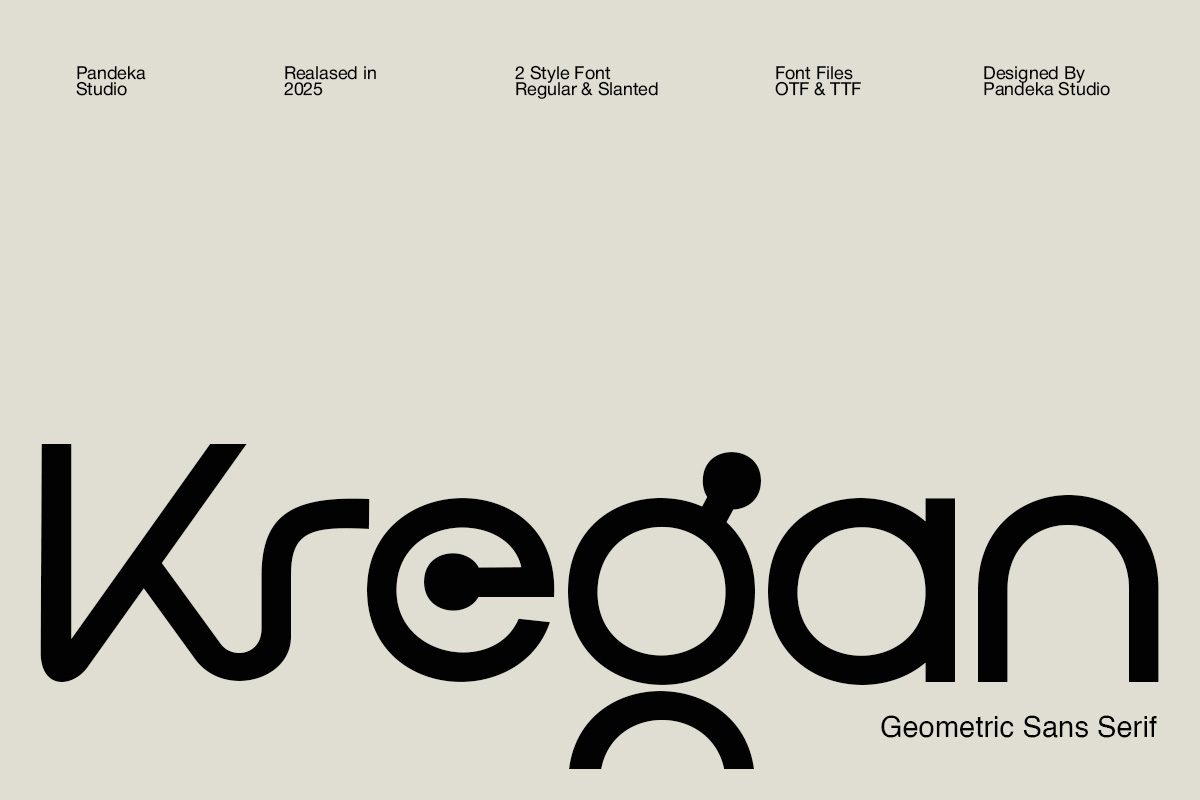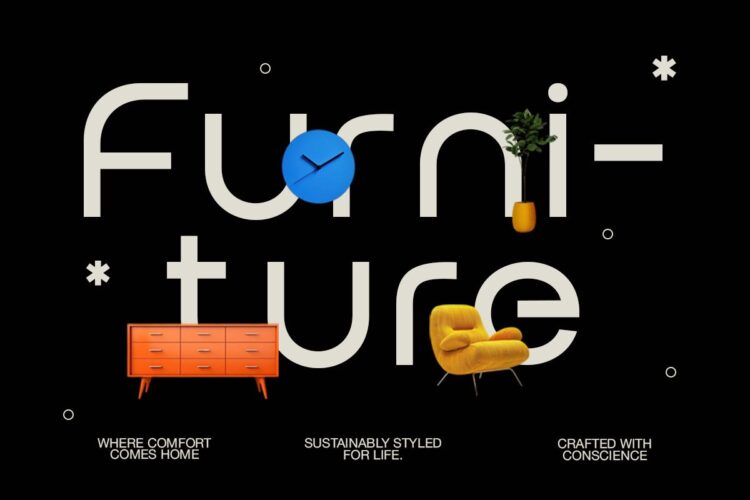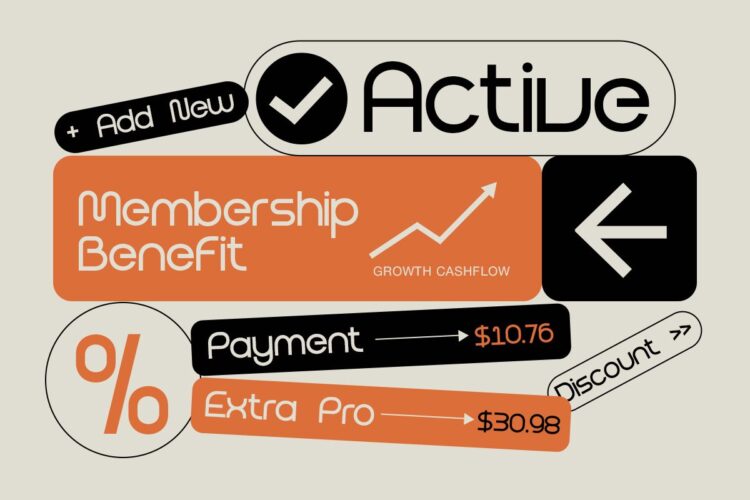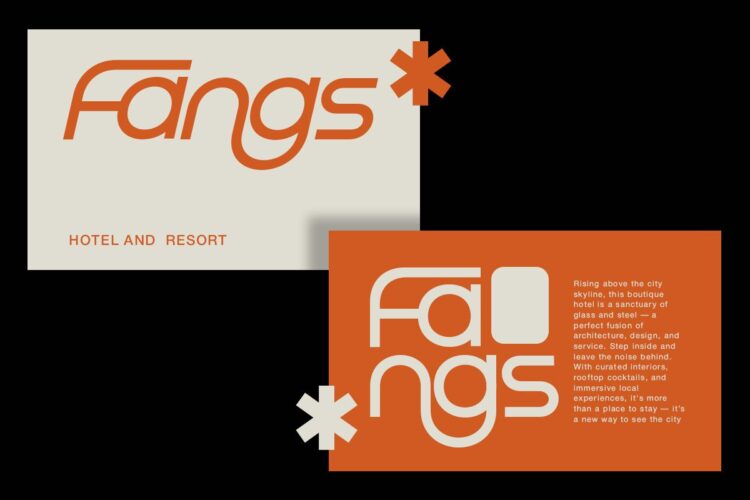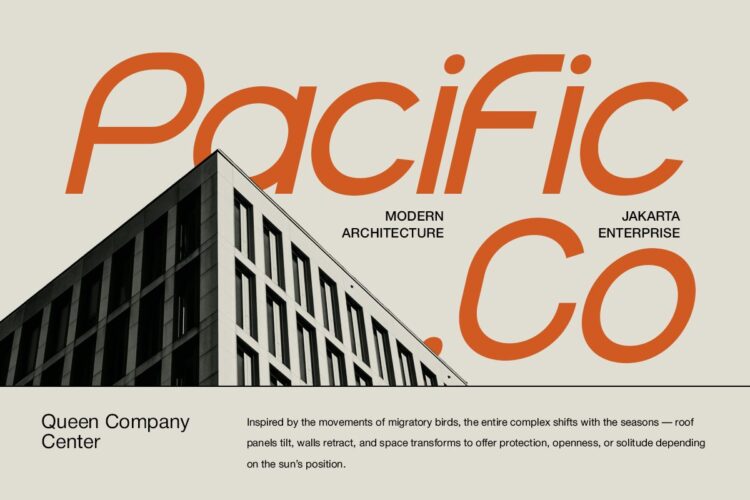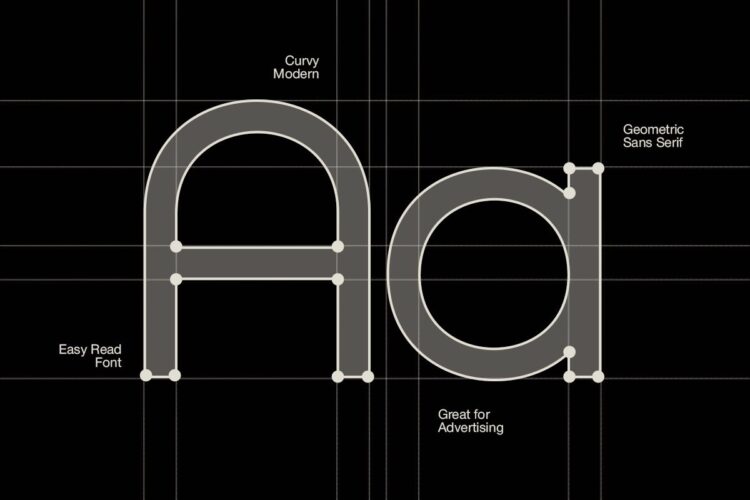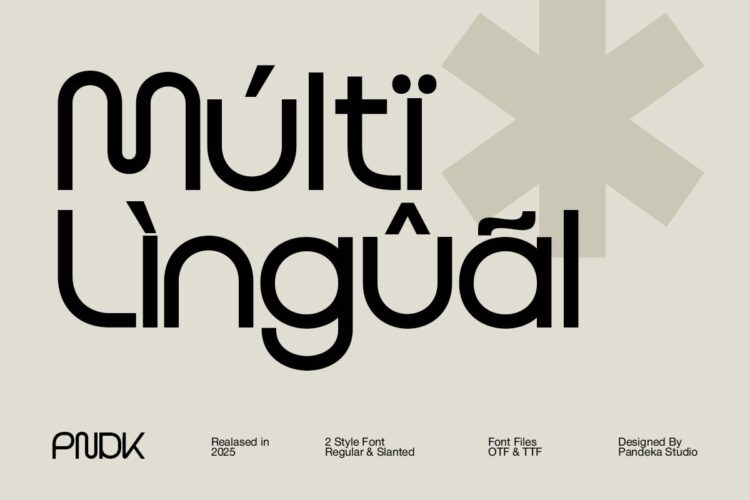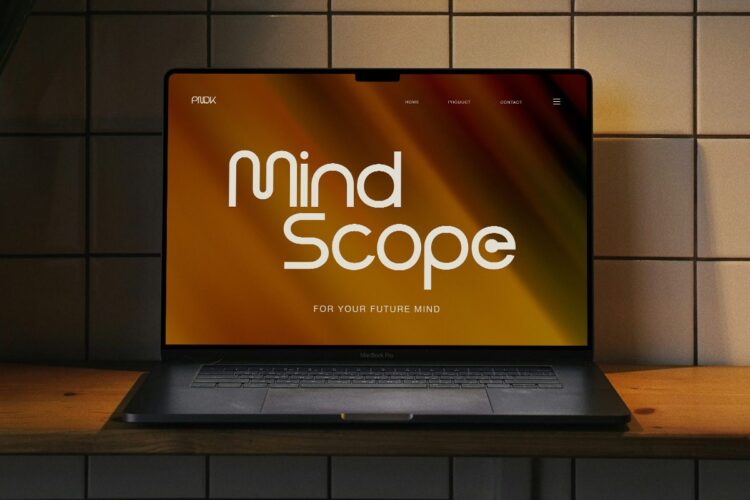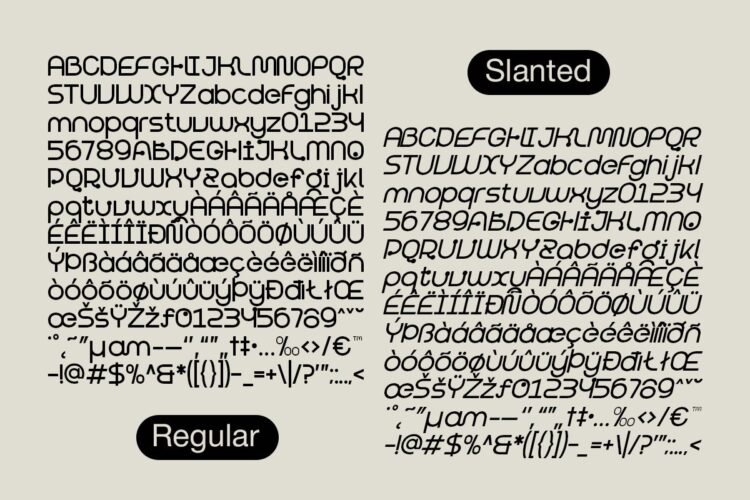
futuristic geometric sans serif font
Kregan Regular
Kregan Slanted
Kregan is a modern geometric sans-serif typeface that embodies minimalism and clarity. With 2 versatile styles—Regular and Slanted—Kregan adapts to a wide range of contemporary design needs, from tech startups and editorial layouts to cutting-edge branding and user interfaces.
Its smooth, rounded forms and clean lines make it ideal for forward-thinking brands seeking sophistication with a subtle personality. With multilingual support and well-crafted alternates, Kregan delivers both global reach and elegant simplicity in every letterform.
Kregan – Futuristic Geometric Sans Font